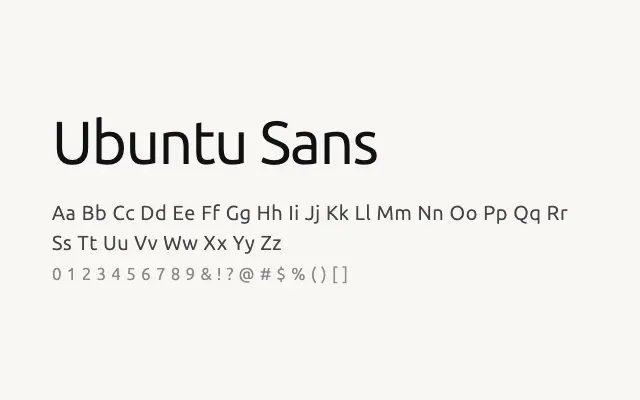
Ubuntu Sans
Ubuntu Sans is a refined, variable-ready expansion of the Ubuntu family offering a broader weight range for modern screen and UI typography.
The updated design addresses limitations of the original Ubuntu while preserving its humanist warmth and strong multilingual credentials across Latin, Cyrillic, and Greek. The extended weight range from Thin to ExtraBold makes it considerably more versatile for building complete typographic hierarchies in digital products and editorial design. It represents the most capable and up-to-date entry point into the Ubuntu type system.
A variable-capable redesign of the Ubuntu sans-serif family with an expanded weight range, refining the original humanist character for contemporary screen and UI applications. Maintains the distinctive open apertures and approachable personality of the Ubuntu lineage.